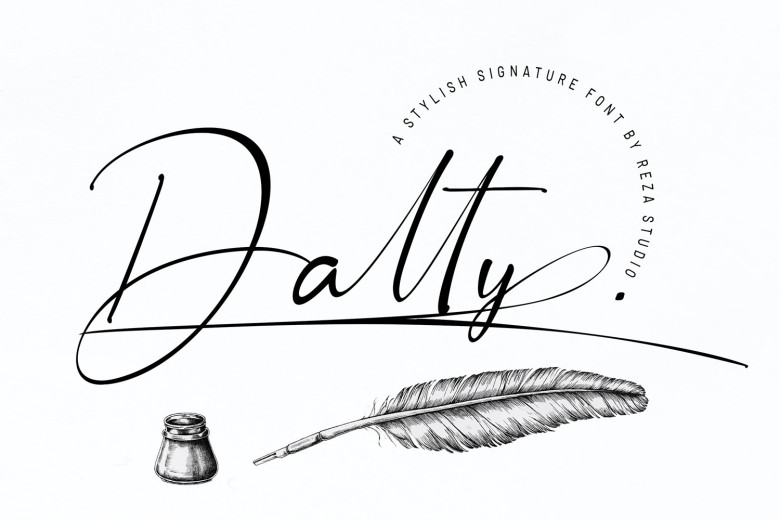
Dalty Font
Dalty is a stylish Signature font with a contemporary and sophisticated accent. Perfect for logo/branding projects, large header text, and product packaging. This font is PUA encoded which means you can access all of the amazing glyphs and ligatures with ease!
Dalty Signature Script Font